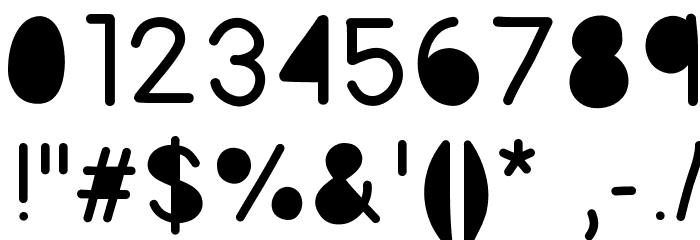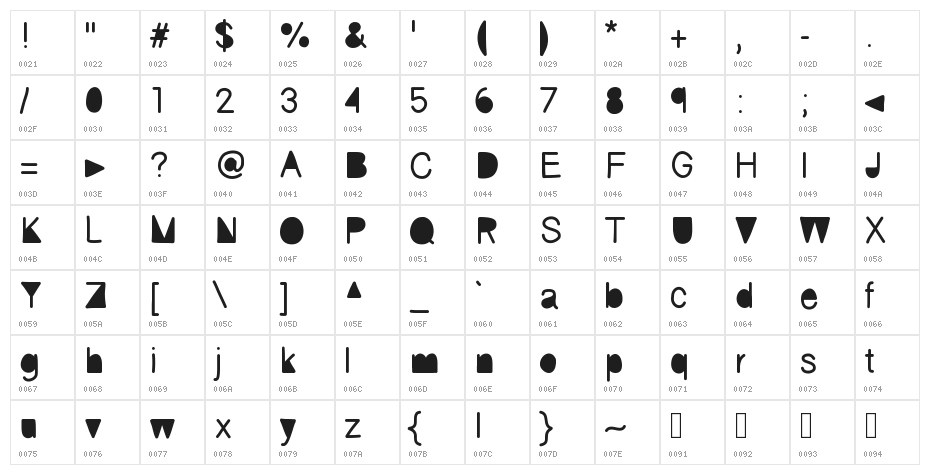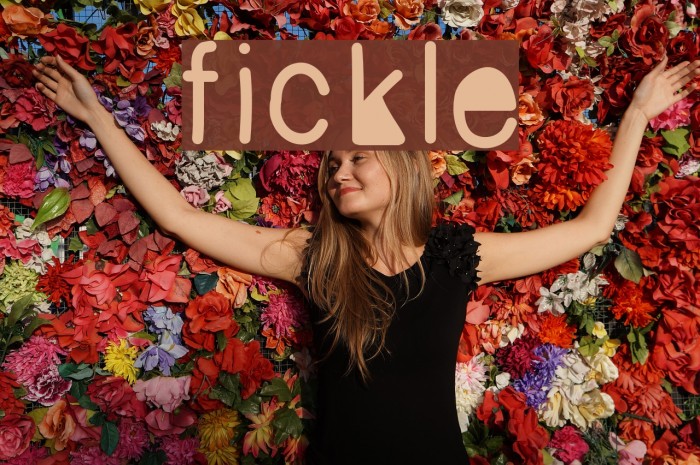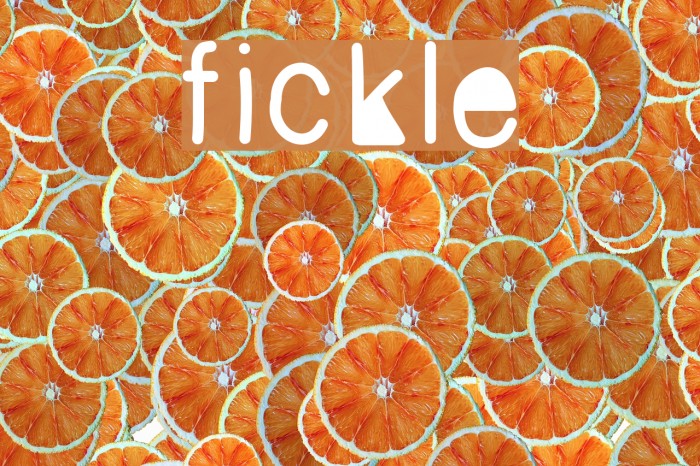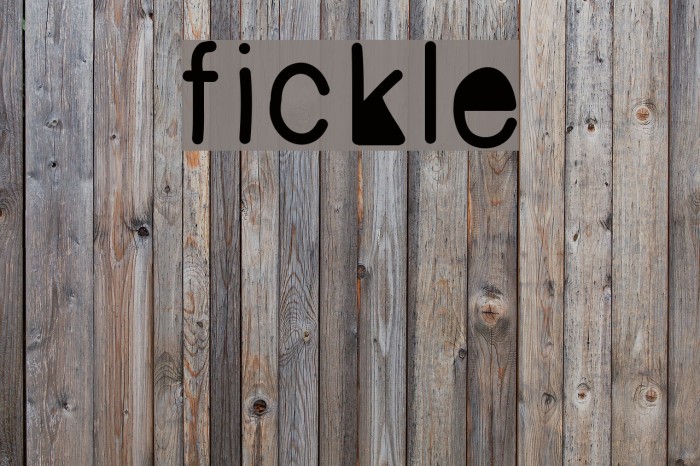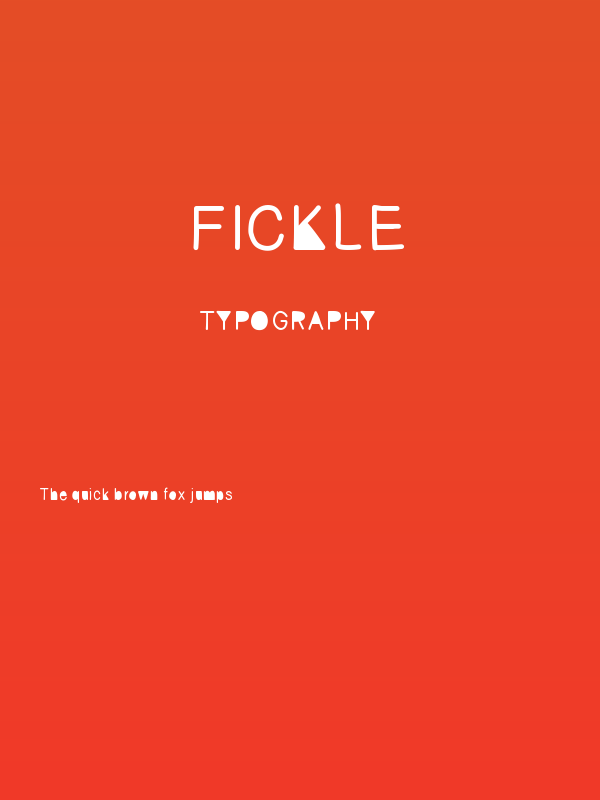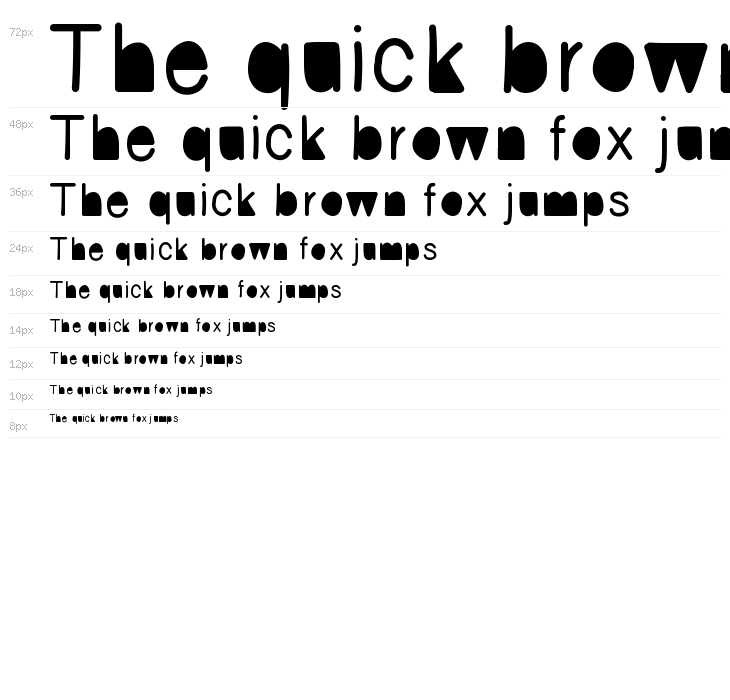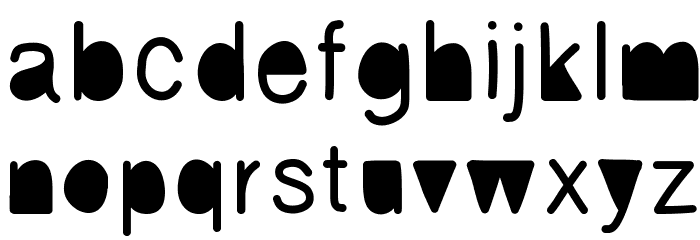
fickle Font
fickle Description
This font features a playful and bold design with a mix of geometric and rounded elements. The uppercase letters are characterized by a combination of solid, filled shapes and open, airy forms, creating a dynamic contrast. The lowercase letters maintain a similar playful style, with some characters having exaggerated curves and others more angular. The numbers are consistent with the overall theme, offering a mix of solid and open forms. Special characters are creatively designed, adding to the font's unique personality. This font is ideal for projects that require a fun and eye-catching typeface.
| Overall Style | Playful, Modern |